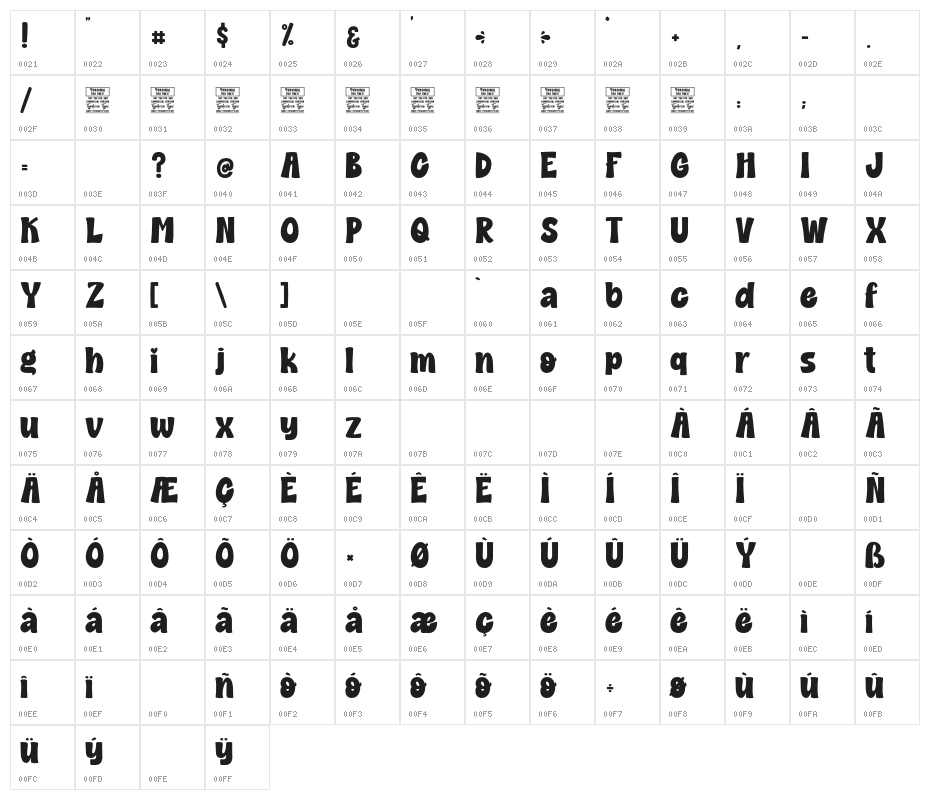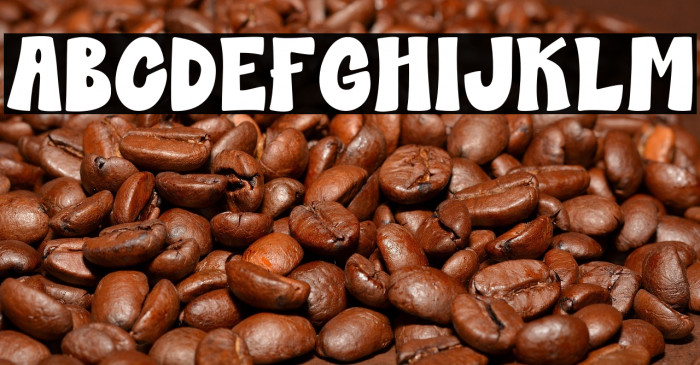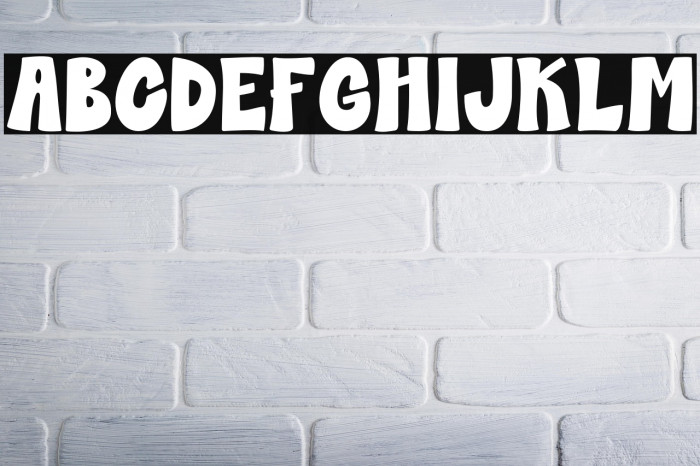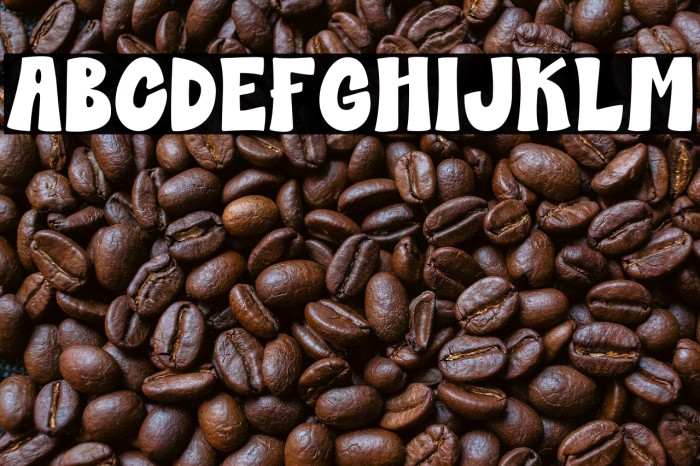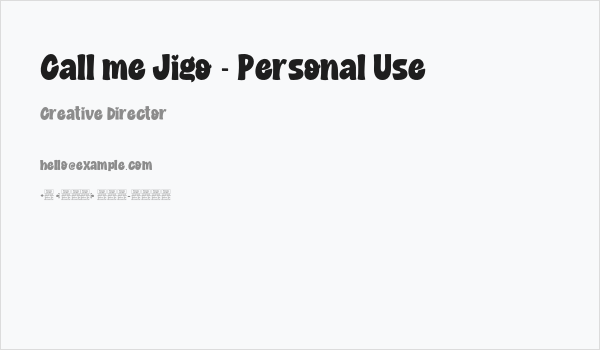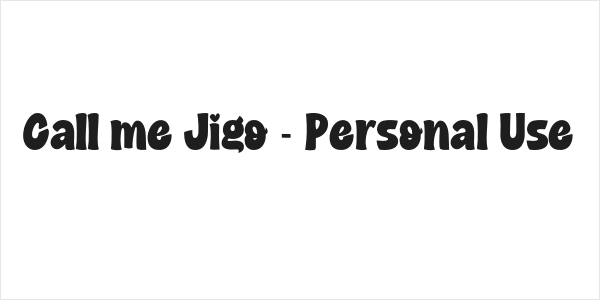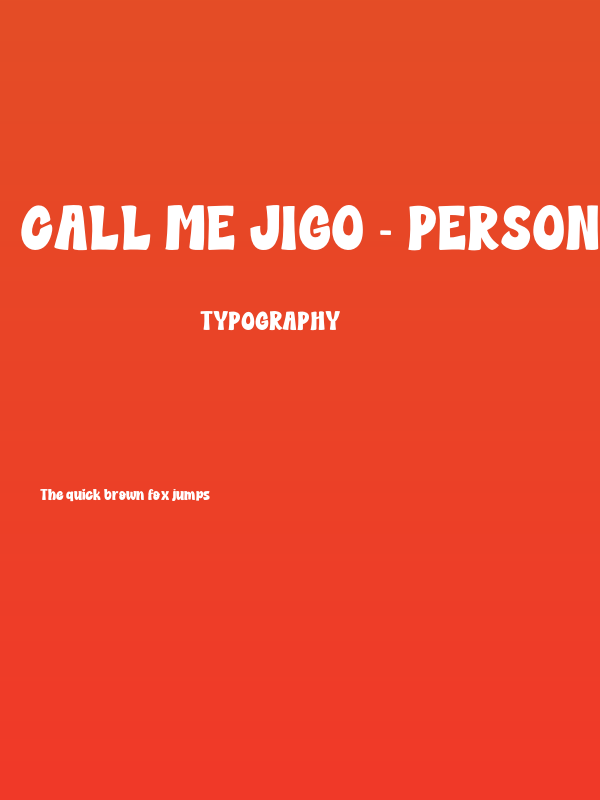
Call me Jigo - Personal Use Font
Call me Jigo - Personal Use Description
This font features a playful and bold style with a hand-drawn appearance. The characters are thick and rounded, giving a friendly and approachable feel. The uppercase letters are slightly irregular in shape, adding to the whimsical nature of the design. The lowercase letters maintain a consistent style with a similar thickness and rounded edges. The numbers and special characters follow the same playful aesthetic, making them suitable for creative and informal projects.
| Proposed Projects | Ideal for children's books, playful branding, greeting cards, and creative posters. |